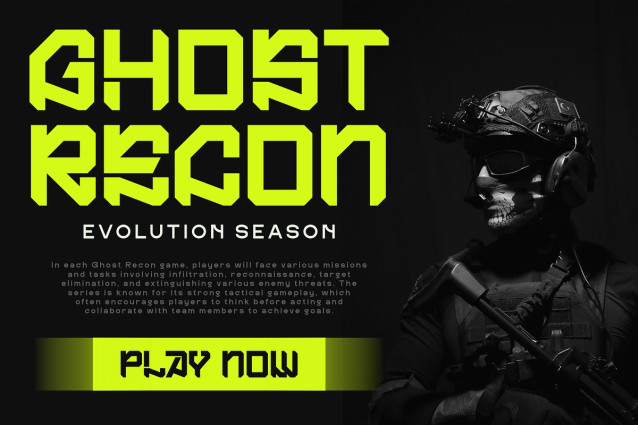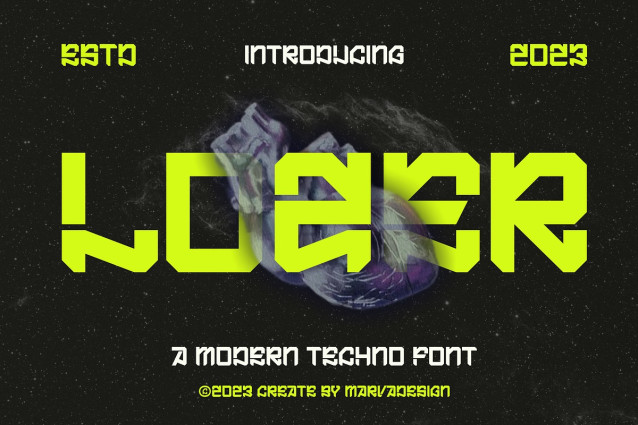
Lozer Font
Lozer Font – Modern Font is a bold and authentic display font. The font is suitable for any branding project like logo, Template Design, Product and many more. outstanding in a wide range of contexts.